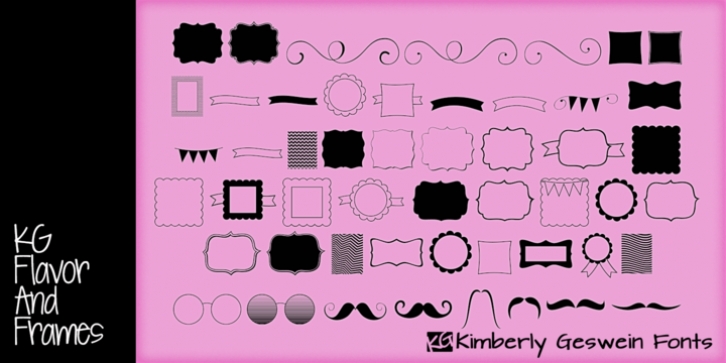
KG Flavor And Frames downloadDesigner: Kimberly Geswein
Publisher: Kimberly Geswein
Adorable accents for your work including frames, labels, chevrons, mustaches, and more!